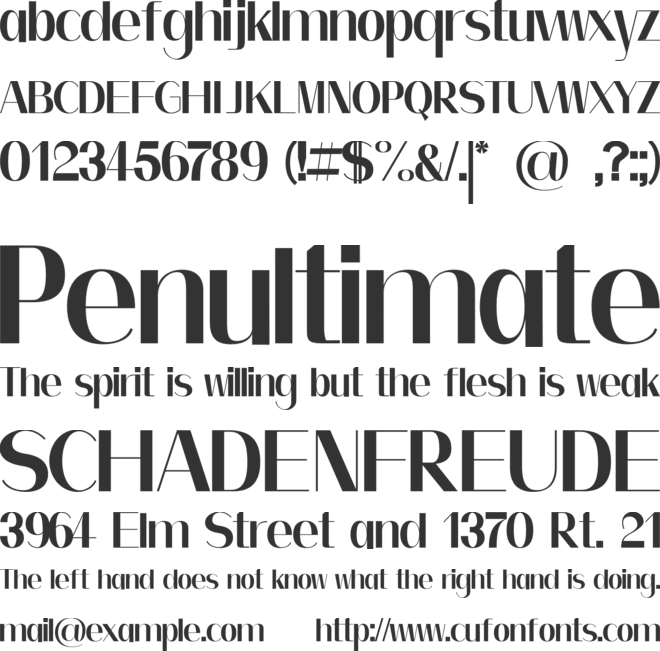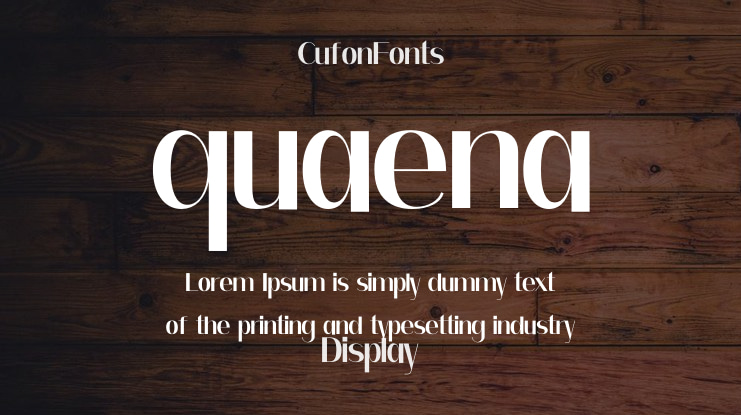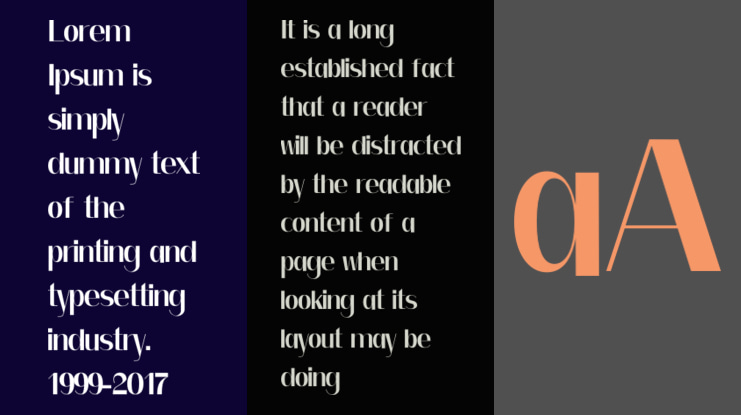
quaena Font Family
🎨 Font Name: QUAENA by Minimalist Art Studio
🎨 Font description: Quaena is a stylized sans serif with exaggerated curves and multilingual support—perfect for edgy branding, fashion packaging, and modern editorial design.